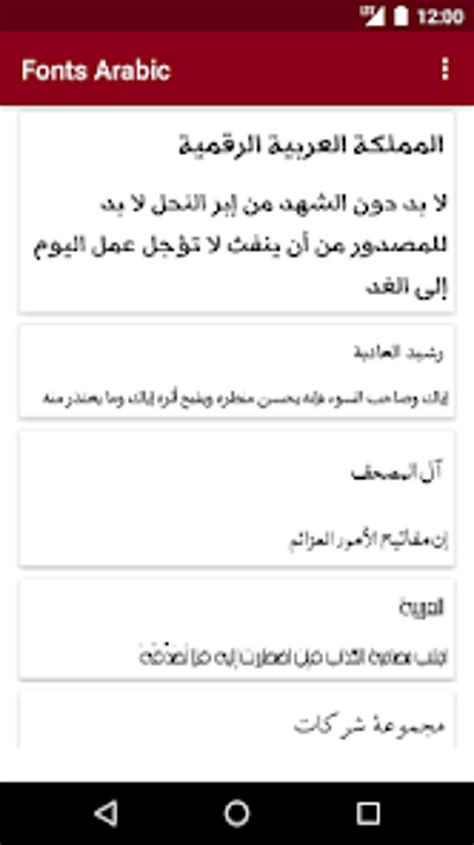
Arabic Fonts For Android. Web arabic fonts, is the wonderland for arabic fonts, arabic typography and calligraphy which offers a wide range of arabic fonts. Web noto sans arabic is an unmodulated (“sans serif”) design for texts in the middle eastern arabic script.
Web noto sans arabic is an unmodulated (“sans serif”) design for texts in the middle eastern arabic script. Web arabic fonts, is the wonderland for arabic fonts, arabic typography and calligraphy which offers a wide range of arabic fonts.
Web arabic fonts, is the wonderland for arabic fonts, arabic typography and calligraphy which offers a wide range of arabic fonts. Web arabic fonts, is the wonderland for arabic fonts, arabic typography and calligraphy which offers a wide range of arabic fonts. Web noto sans arabic is an unmodulated (“sans serif”) design for texts in the middle eastern arabic script.